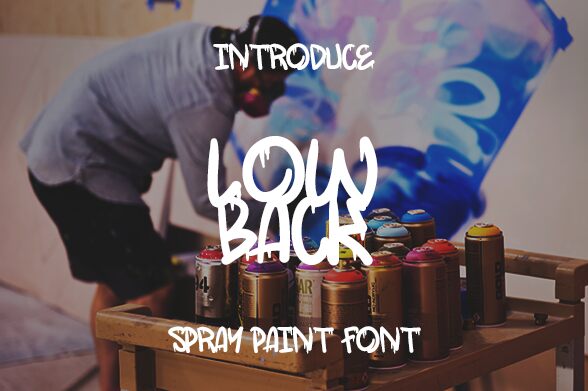
LowBack Demo
The LowBack is new font from Aphriell Art, elegant feel character set. To create the beautiful combination, just mix the uppercase and lowercase and some swash. The LowBack inspire from Graffiti Style on the street.
The LowBack is suitable font for many creative products & designs.